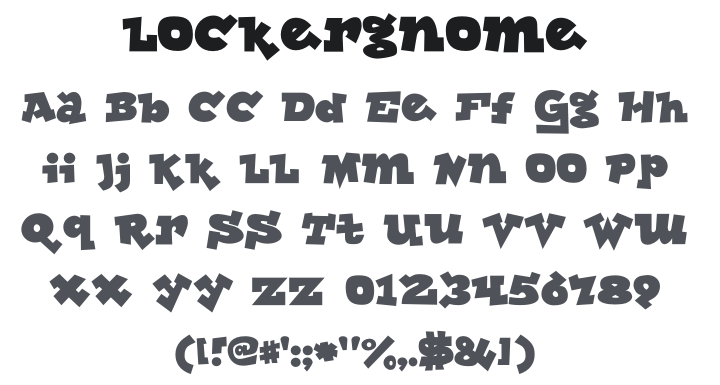
Lockergnome Font
About Lockergnome
Lockergnome is an aggressive headline screamer with nasty serifs and obnoxious curves — chunky, defiant letterforms bristling with jagged edges and sharp angles that give every word a foul, confrontational attitude. Its raw, unapologetic energy commands instant attention. Perfect for edgy posters, punk branding, rebellious merchandise, and any headline that needs to grab the viewer by the collar.